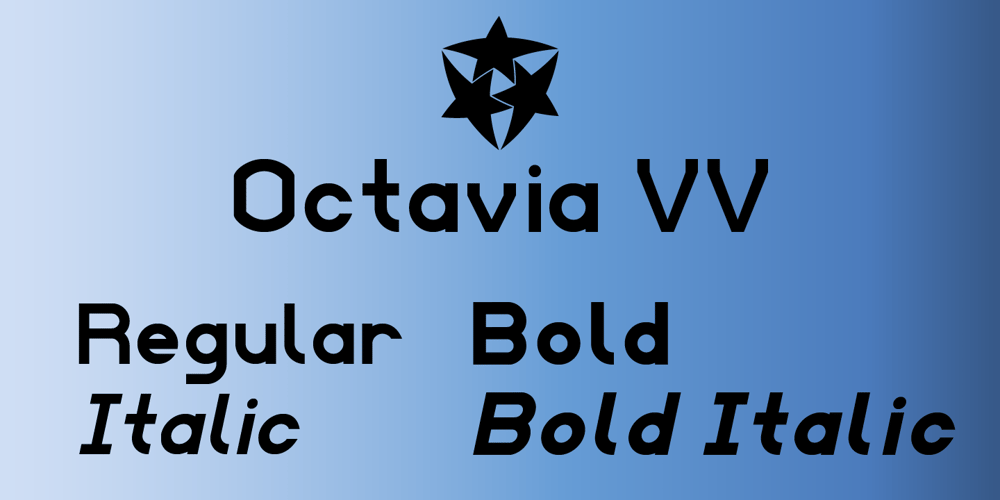
Octavia VV Font Family was designed by Viktor Kalgin and published by STARSsoft. Octavia VV contains 4 styles and family package options. The “Octavia VV” font family includes Regular, Italic, Bold, and Bold Italic fonts. Sans serif font type. The whole font family includes a large set of additional characters and letters with diacritics. Standard and Latin Extended support such languages – English, Danish, Spanish, German, Norwegian, Polish, Portuguese, French, Swedish. Standard and extended Cyrillic are supported by languages – Russian, Belarusian, Bulgarian, Macedonian, Serbian, Ukrainian, Kazakh, Kyrgyz.